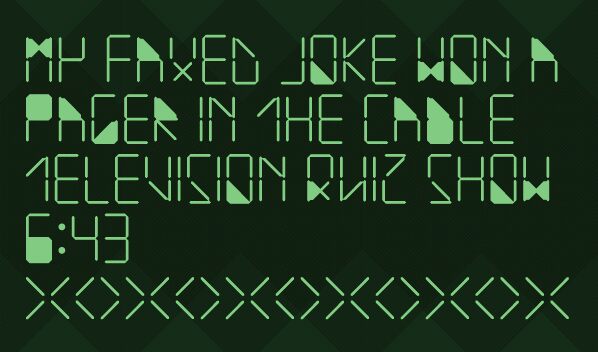
Water in My Casio is a free techno display font built from sharply cut geometric forms. Its broad blocks meet thin upright strokes and clipped corners. Small diamond-like joints sharpen the machine-made look.
It can turn a brand name into a compact electronic emblem for synth labels, arcade titles, or streetwear branding. The angular breaks also suit album covers and event posters with a retro-futurist direction. The lettering points clearly toward control panels, early digital hardware, and low-resolution technology.
Water in My Casio is an LED face.